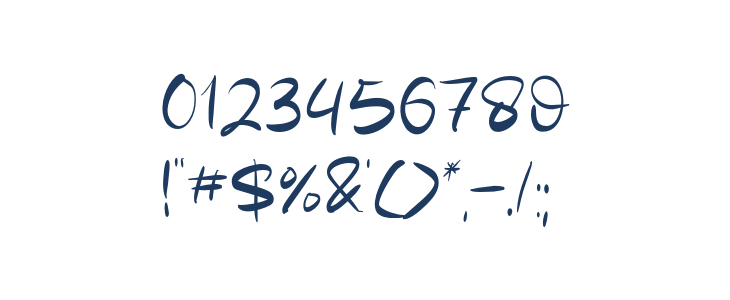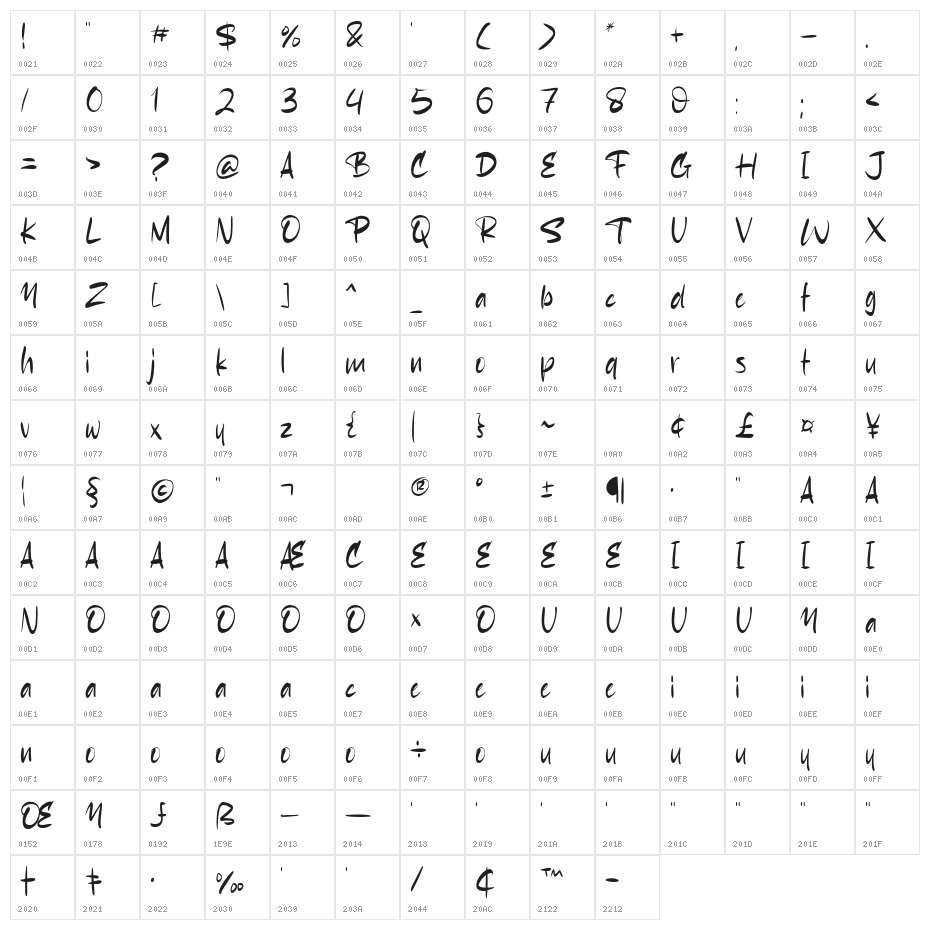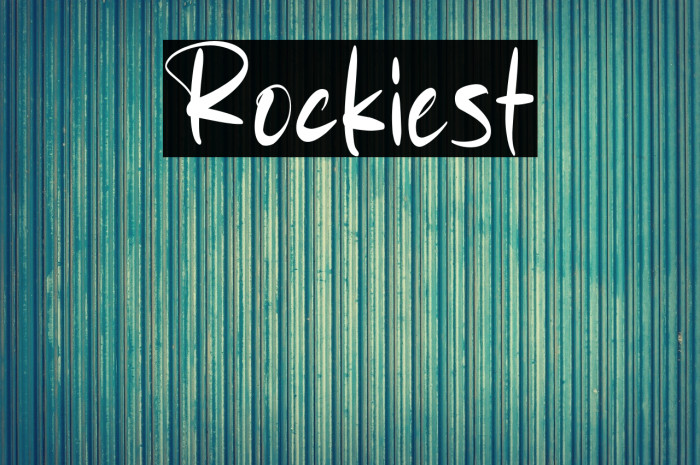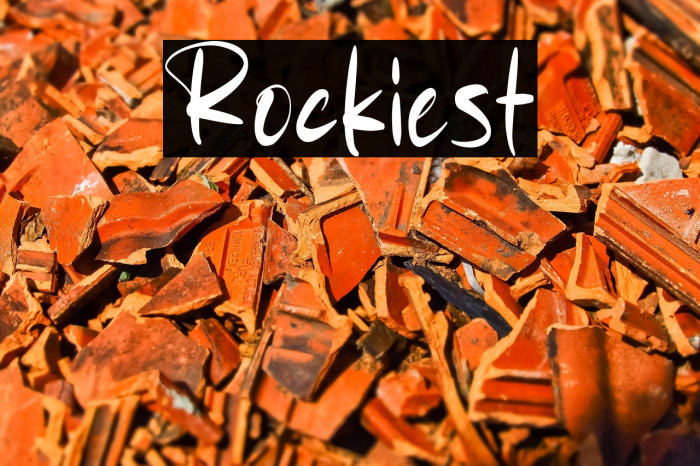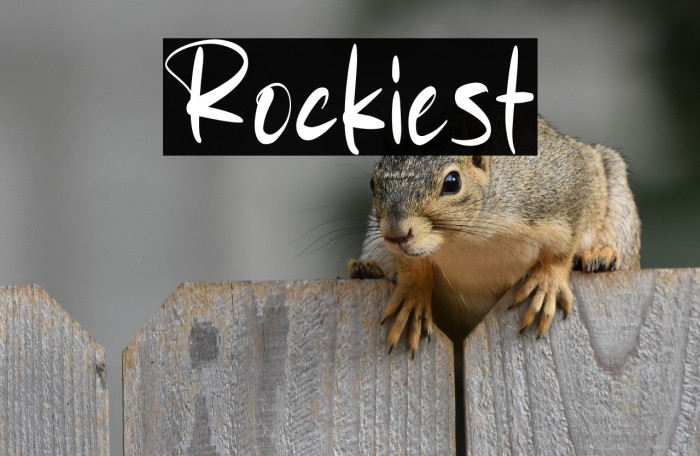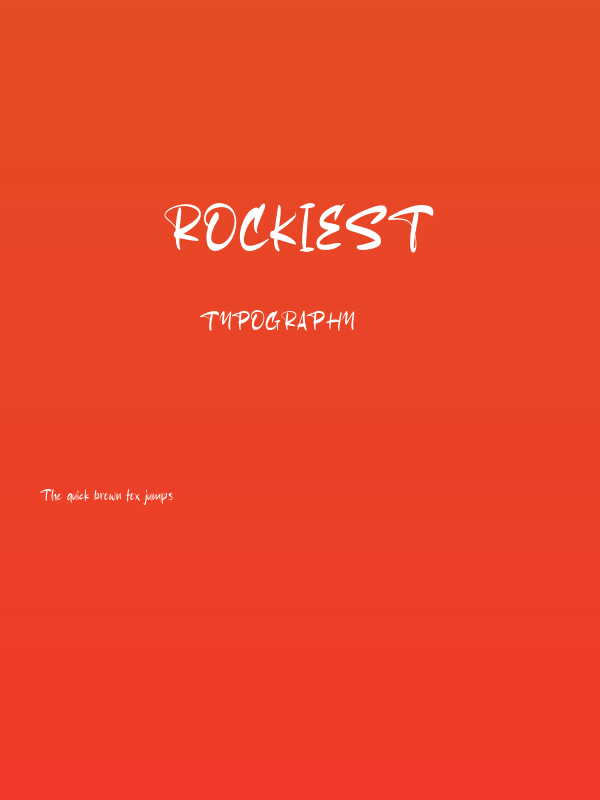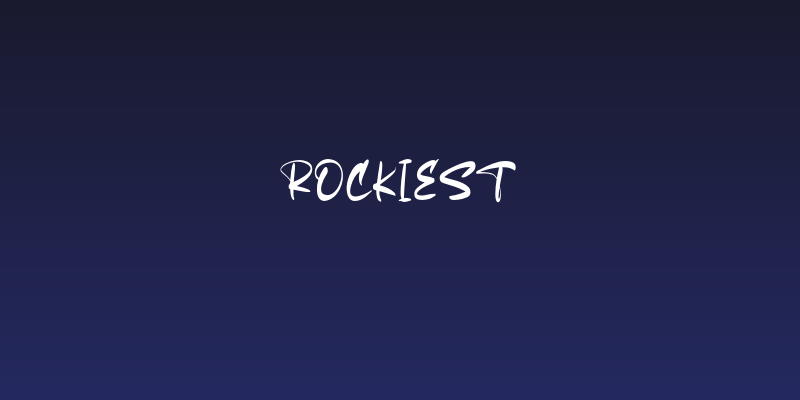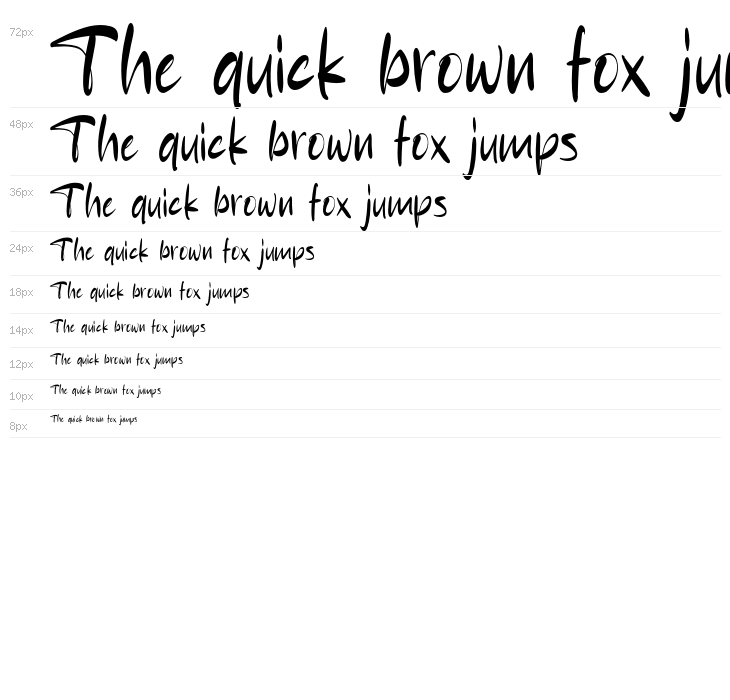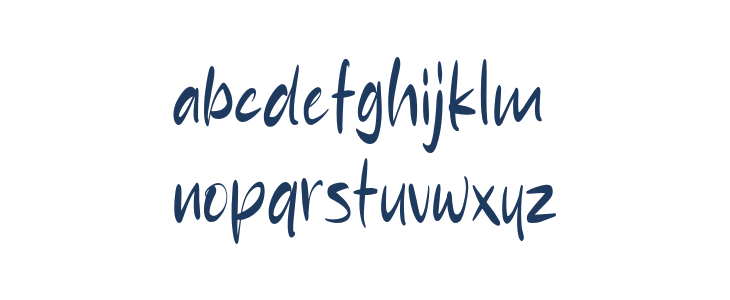
This font exhibits a lively and dynamic handwritten style, characterized by its fluid and slightly irregular strokes. The letters have a playful and informal appearance, with varying thickness that adds a sense of movement and energy. The uppercase and lowercase letters are well-balanced, maintaining a consistent flow throughout. The numerals and special characters complement the alphabet with similar stylistic features, enhancing the overall cohesive look. This font's unique charm makes it suitable for projects that require a personal and approachable touch.
| Use Case | Logos, Invitations, Greeting cards |
| Proposed Projects | Ideal for greeting cards, invitations, personal branding, and creative projects that require a personal touch. |